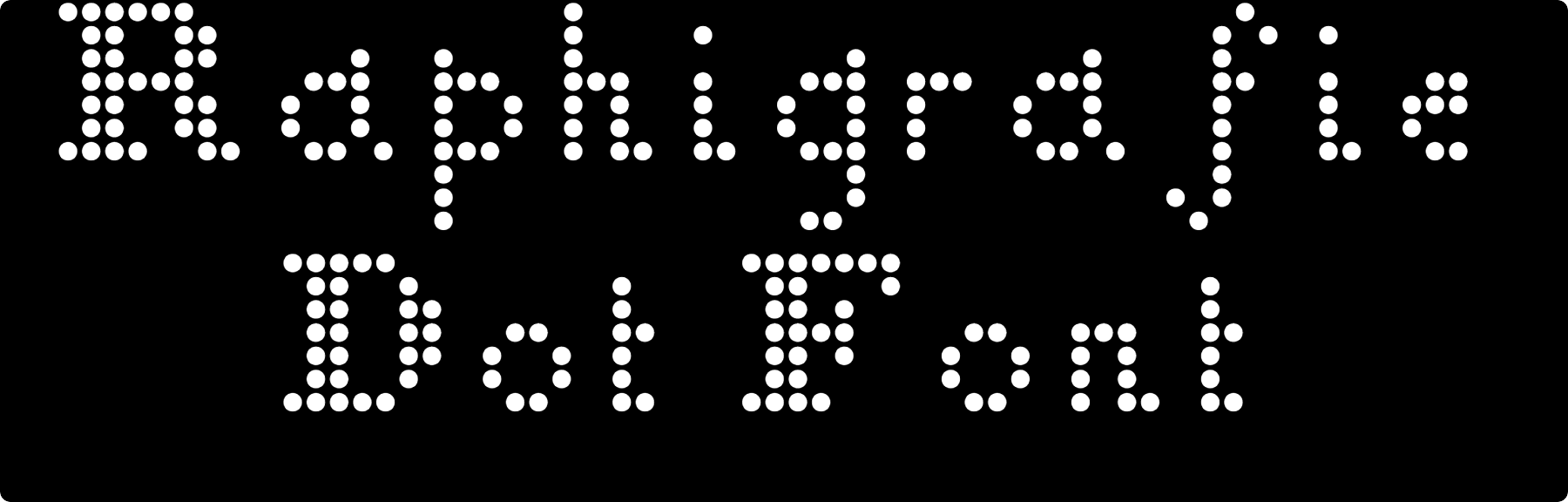
Raphigrafie
Raphigrafie is a techno font designed by Alexander Fakoó (2014). Its angular, engineered shapes look right at home on screens and tech products. You can download it for free and test it with your own words in the preview above.
What You Can Type With Raphigrafie
You get every letter from A to Z in both cases and all the numbers from 0 to 9, which means Raphigrafie can handle full sentences, dates and prices. Common punctuation such as ! and ? is included as well. It also has the accented letters you need for French, German and Italian.
Where Raphigrafie Works Best
Think of Raphigrafie for gaming logos, tech branding and futuristic posters. The file has no kerning data, so in logos and big titles check pairs like AV, To and Wa and tighten the spacing by hand. Try it on a dark background with a bright accent color for a sharp, modern look.
Who designed Raphigrafie font?
Raphigrafie was designed by Alexander Fakoó. The copyright line inside the font is dated 2014.
Does Raphigrafie support accented letters?
Yes. Raphigrafie includes the accented letters needed for French, German and Italian, so it works for more than just English.
What fonts pair well with Raphigrafie?
A simple sans serif like Roboto keeps longer text easy to read next to it.